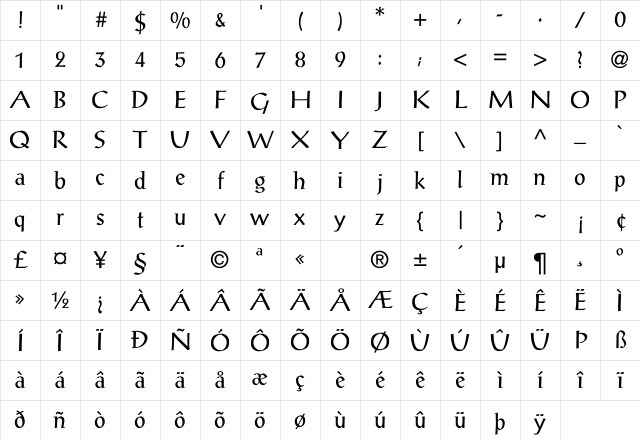
Complete Alex-Antiqua-Book Regular glyph index. Displaying only characters natively supported by Alex-Antiqua-Book Regular font.
Alex-Antiqua-Book is a composed and adaptable typeface that performs quietly and consistently across a wide range of design contexts.